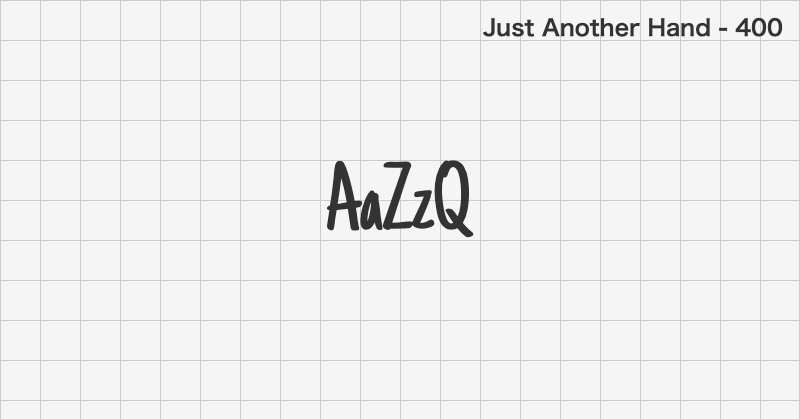
Just Another Hand – Handwriting Fonts Free for Commercial Use
Just Another Hand is a narrow brush-drawn handwriting font inspired by the designer’s high school days. The design captures the essence of personal handwriting while offering a cleaner stroke for a polished look. Its unique character makes it suitable for casual applications.
Just Another Hand was developed by Astigmatic, who aimed to create a typeface that reflects personal handwriting evolution. The design combines nostalgia with modern aesthetics.